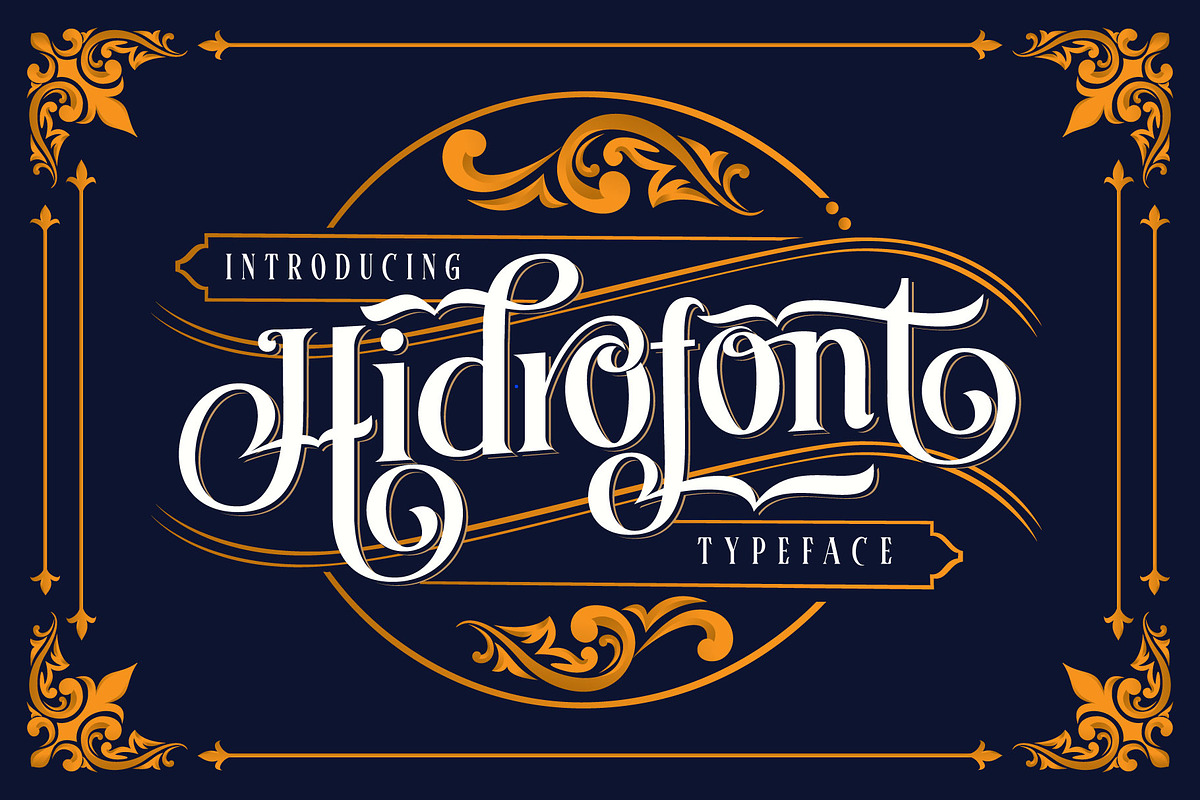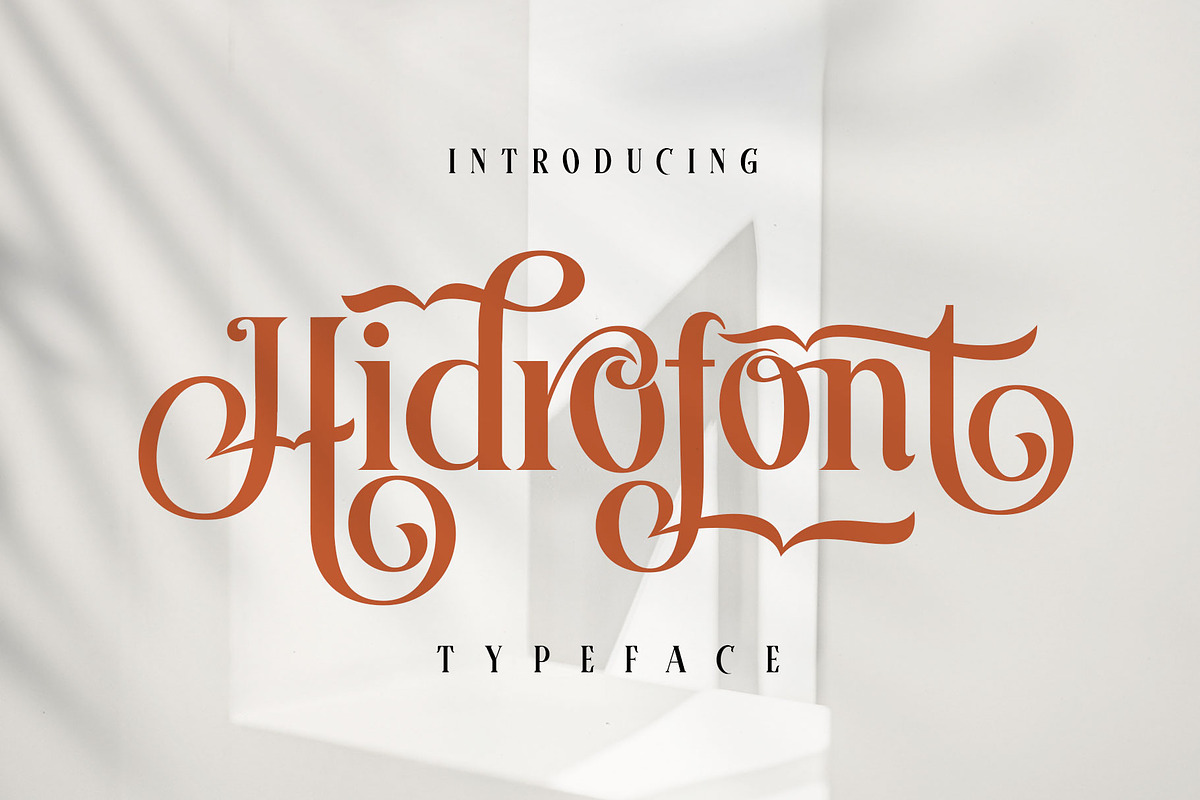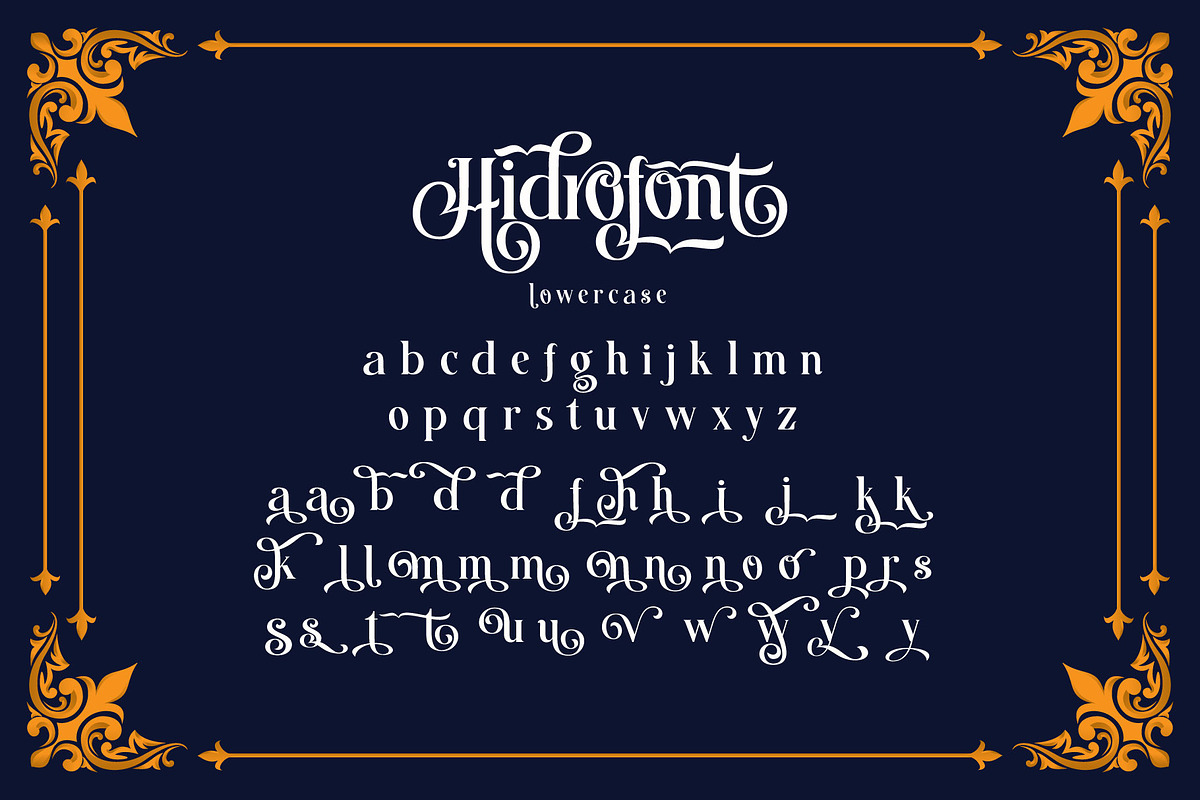
Hidrofont
Introducing Hidrofont typeface
Hidrofont is inspired by the classic era typeface in the 1800 era but is combined with today's era and produces a very elegant and charming typeface. The details of the “Hidrofont” shape are very subtle and flow creating unique and gorgeous curves. Elegant serif like “Hidrofont” are very easy to apply to any design, especially those with an elegant and smooth concept, apart from that this font is very easy to use in both design and non-design programs because all alternates and glyphs are supported by Unicode (PUA).